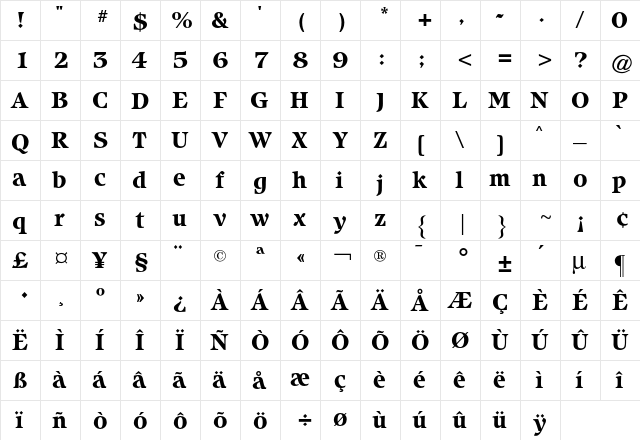
Isbell CG Bold
| Foundry | Miles Inc |
Design Context for Isbell CG Typeface
Isbell CG offers clean, dependable letterforms without strong stylistic allegiance, making it a practical choice for designers who need flexibility. Its bold stroke weight gives it real presence on the page.
Pro Tip: Pair Isbell CG with a font of contrasting weight or personality to build a more expressive typographic hierarchy.